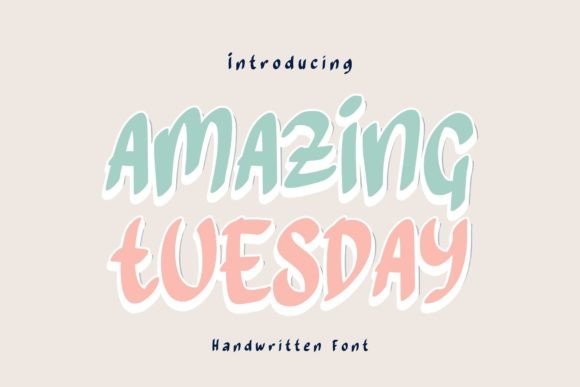
Unleash the exuberance of Amazing Tuesday, a captivating handwritten font brimming with playfulness and authenticity. Immerse yourself in its whimsical charm and elevate your creative projects to extraordinary heights.
With its unique, easy-going style, Amazing Tuesday is the perfect font for expressing your individuality. Its playful strokes and authentic handwritten aesthetic effortlessly add a touch of fun and personality to any design.
Step into a world of endless possibilities with Amazing Tuesday. Create eye-catching blog posts that capture your audience's attention, design logos that exude a sense of warmth and genuineness, and craft branding materials that leave a lasting impression. Let your creativity soar as you create stunning ads, invitations, greeting cards, and planners that radiate joy and authenticity.
Whether you're scrapbooking your cherished memories or designing photo albums that tell a story, Amazing Tuesday is the perfect font to capture those special moments. Its charming style adds a personal touch to every page, making your memories come alive.
Unlock the potential of Amazing Tuesday and transform your creative visions into tangible masterpieces. With its versatility, it seamlessly adapts to a wide range of projects, from home décor items to personal stationery. Let your imagination run wild as you create custom decorations that reflect your unique style.
Make a statement with Amazing Tuesday, a font that embodies the essence of playfulness and authenticity. Download it today and embark on a creative journey filled with endless possibilities. Let your designs shine with the vibrancy and charm of Amazing Tuesday.